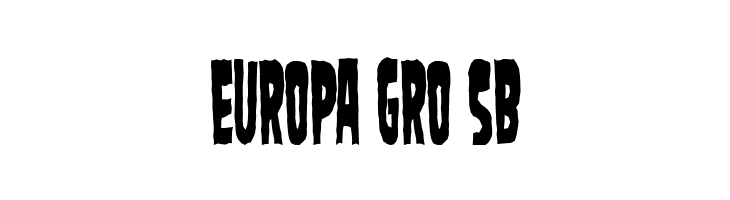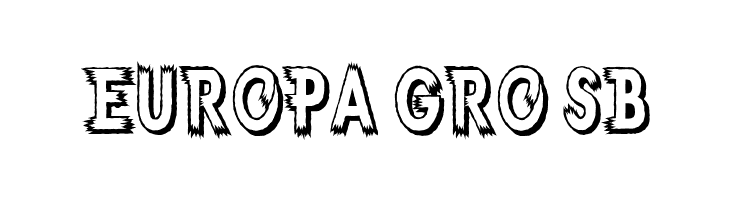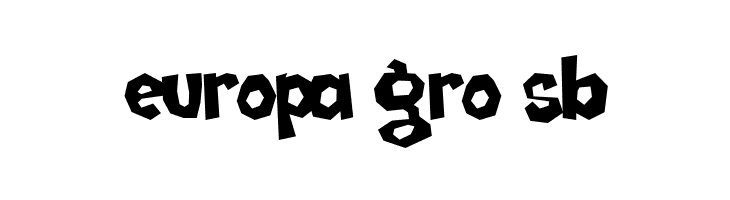
( Fonts by Daniel Gauthier )
A bold, rugged font with a hand-drawn, distressed appearance.
( Fonts by Daniel Gauthier )
A bold, jagged, and condensed font with an edgy, graffiti-like style.
( Fonts by Michael Tension - www.TensionType.com )
A bold, distressed font with a rugged, stencil-like appearance.
A bold, rugged outline font with a distressed, hand-drawn aesthetic.
A bold, rugged outline font with a hand-drawn, edgy appearance.
( Fonts by Daniel Gauthier )
A bold, jagged font with an energetic and dynamic appearance.
( Fonts by www.vicfieger.com )
A bold, distressed font with a rugged, weathered appearance.
A bold, jagged font with an irregular, hand-cut appearance.
( Fonts by Daniel Gauthier )
A bold, angular font with a rugged, vintage western style.